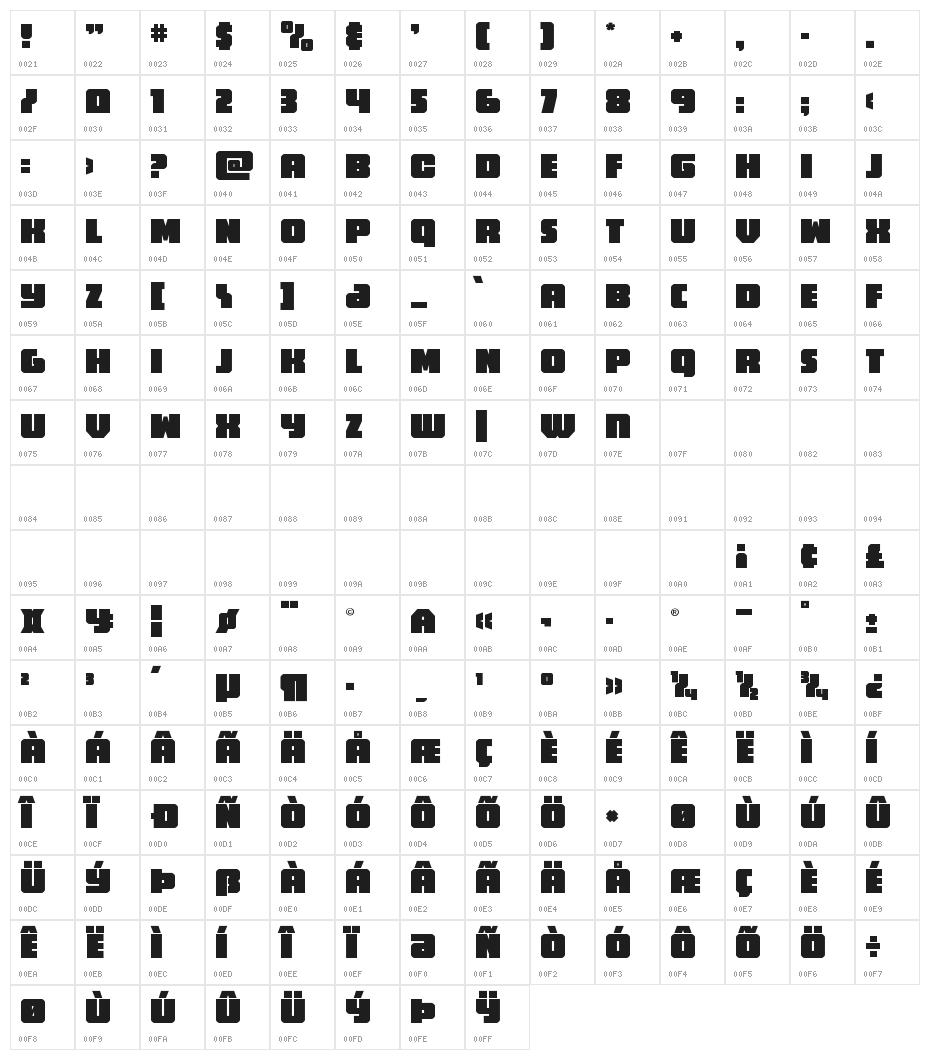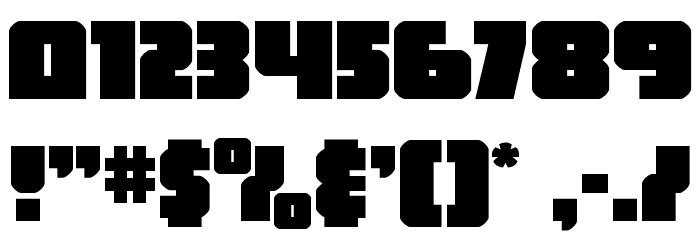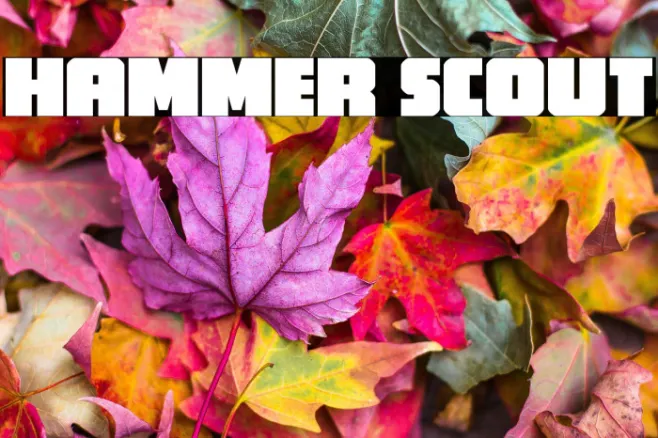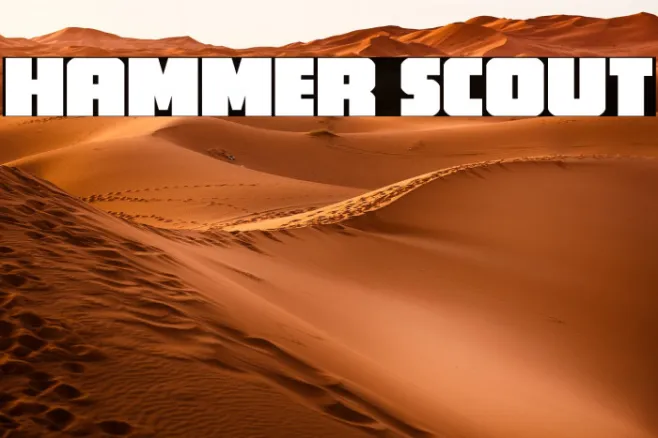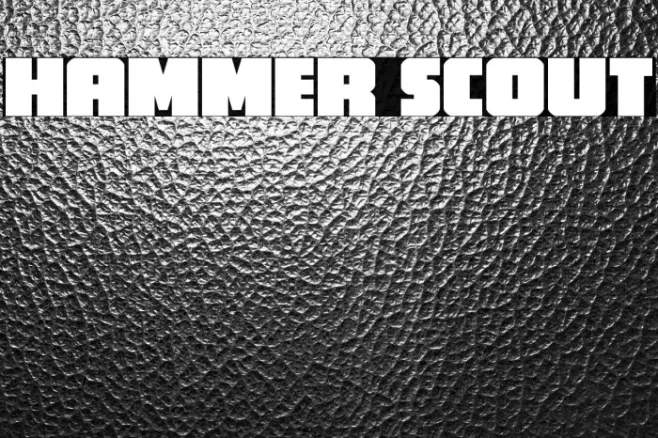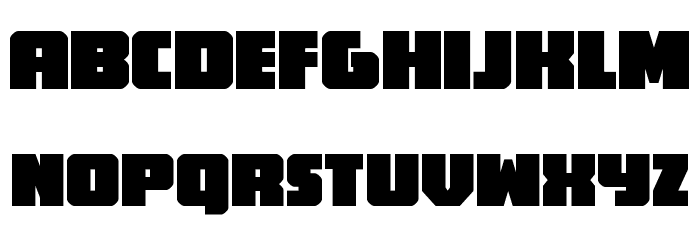
Hammer Scout Font
Hammer Scout Description
This font features a bold and impactful design, characterized by thick, blocky letters with a strong geometric structure. The uppercase and lowercase letters maintain a consistent weight, creating a uniform appearance. The numbers and special characters follow the same robust style, ensuring a cohesive look across all text elements. The font's heavy strokes and minimal contrast make it ideal for attention-grabbing headlines and titles. Its solid and sturdy appearance conveys a sense of strength and reliability, making it suitable for projects that require a bold statement.
| Proposed Projects | Perfect for posters, logos, branding, and any design requiring a strong visual impact. |